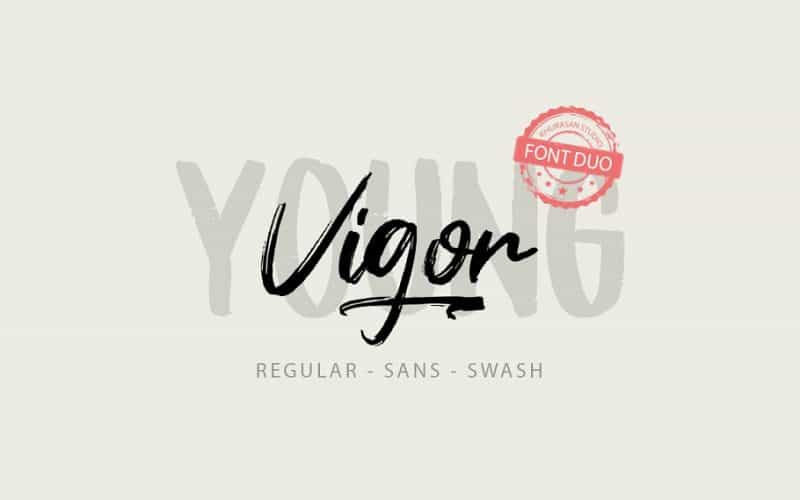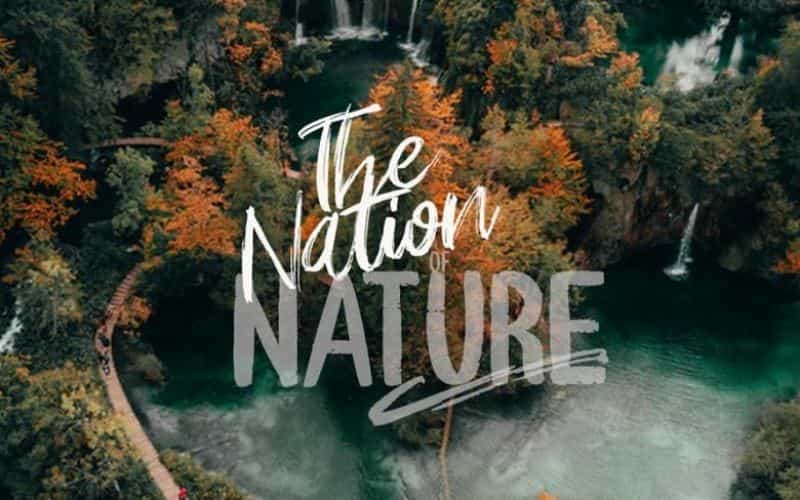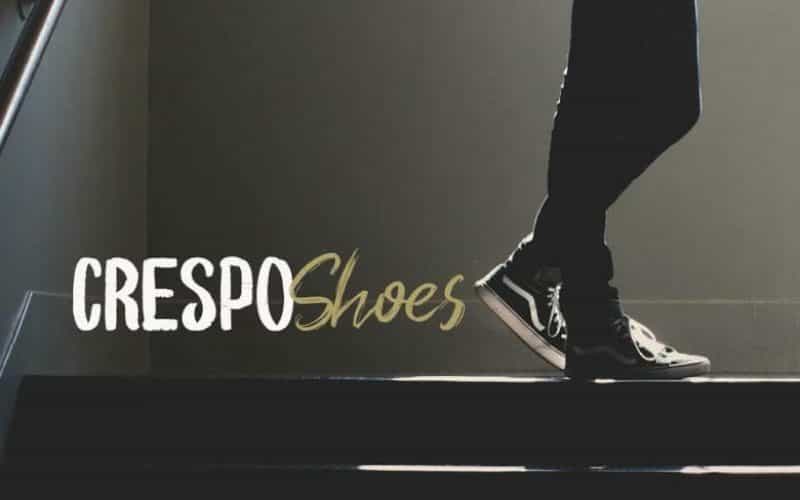
The Young Vigor font is a contemporary font that has two styles, signature & sans + swash. Young Vigor font is suitable for poster, logo, magazine, cover, banner, t-shirt and headers, or even large-scale artwork.